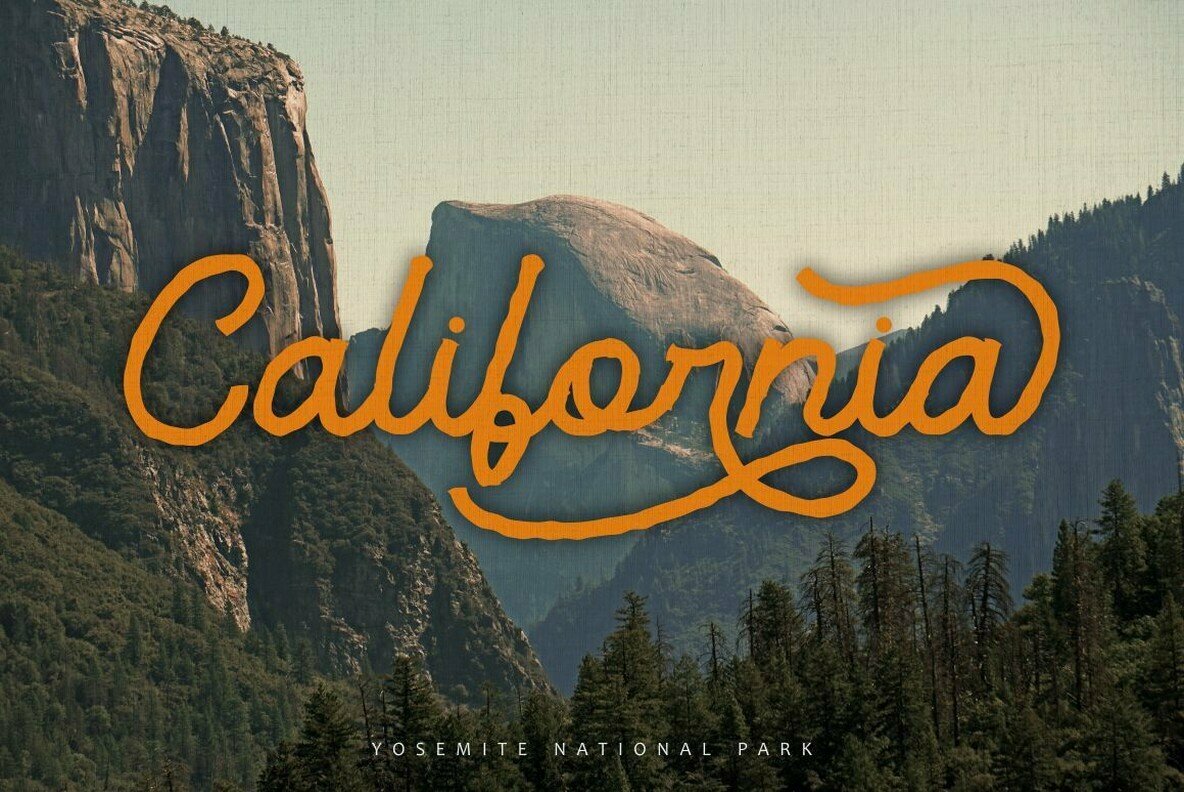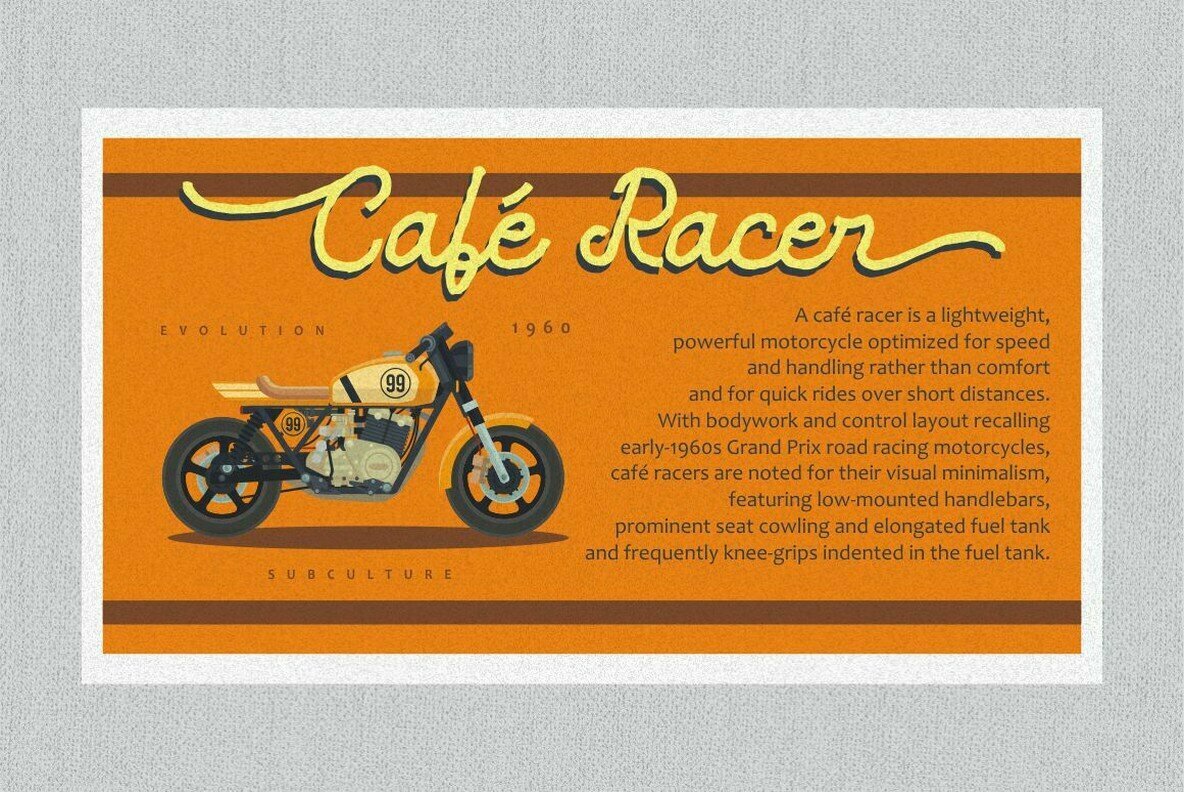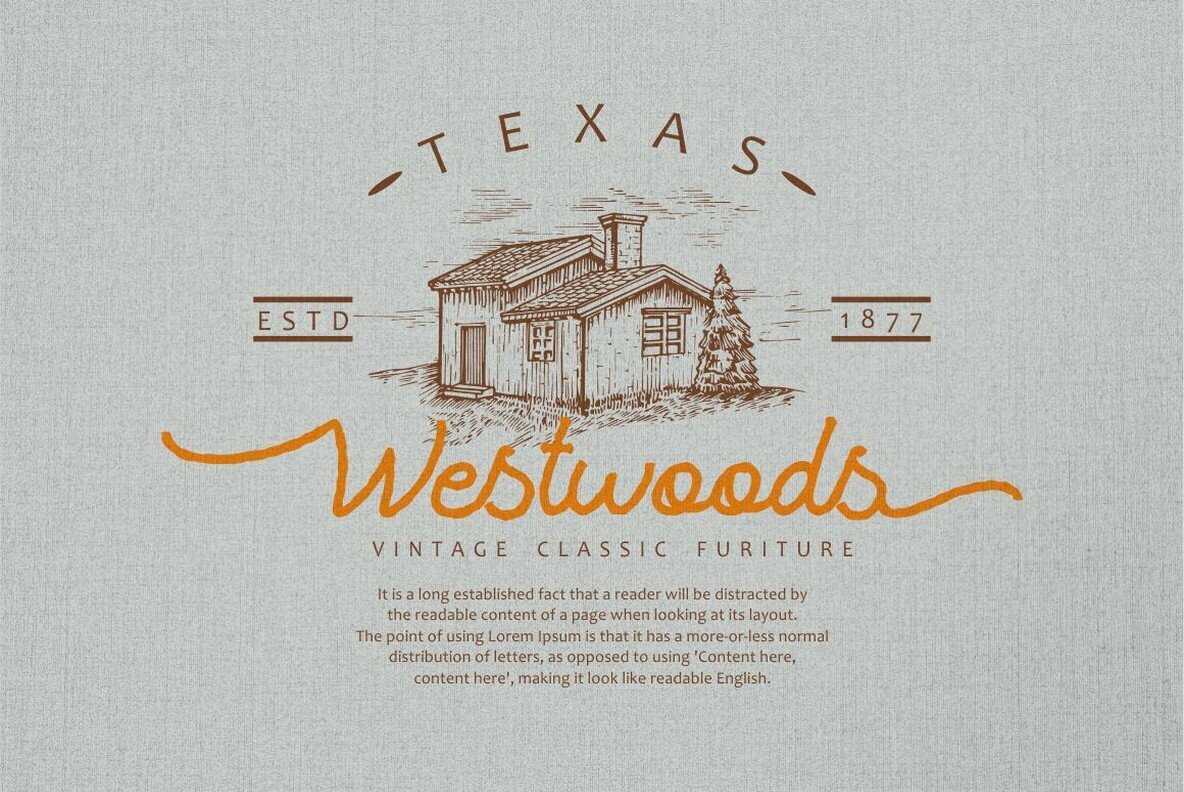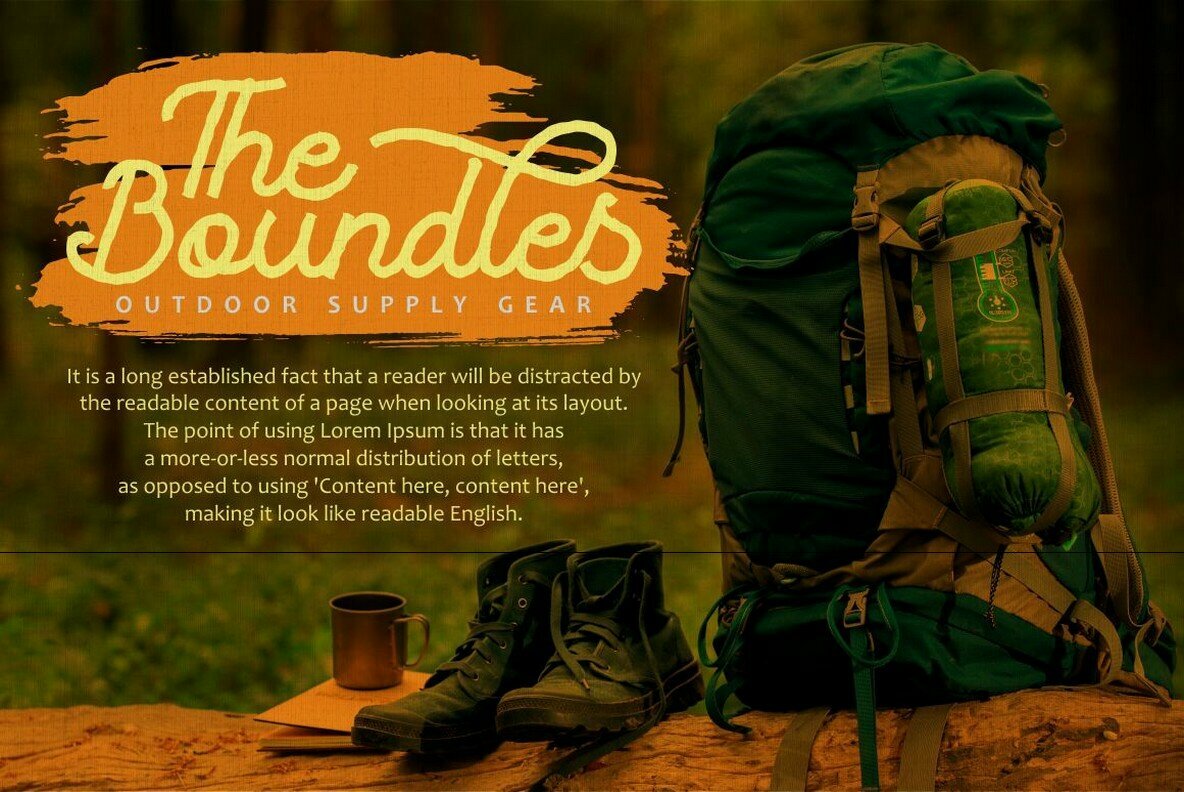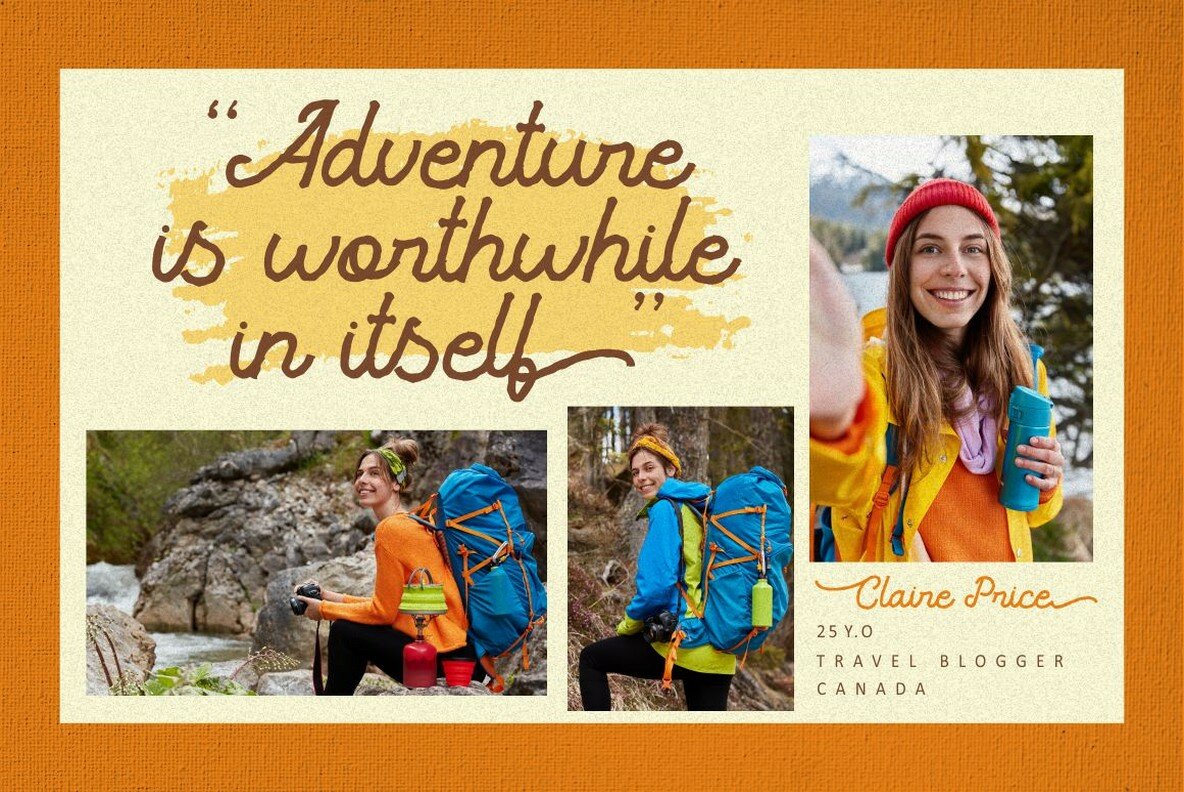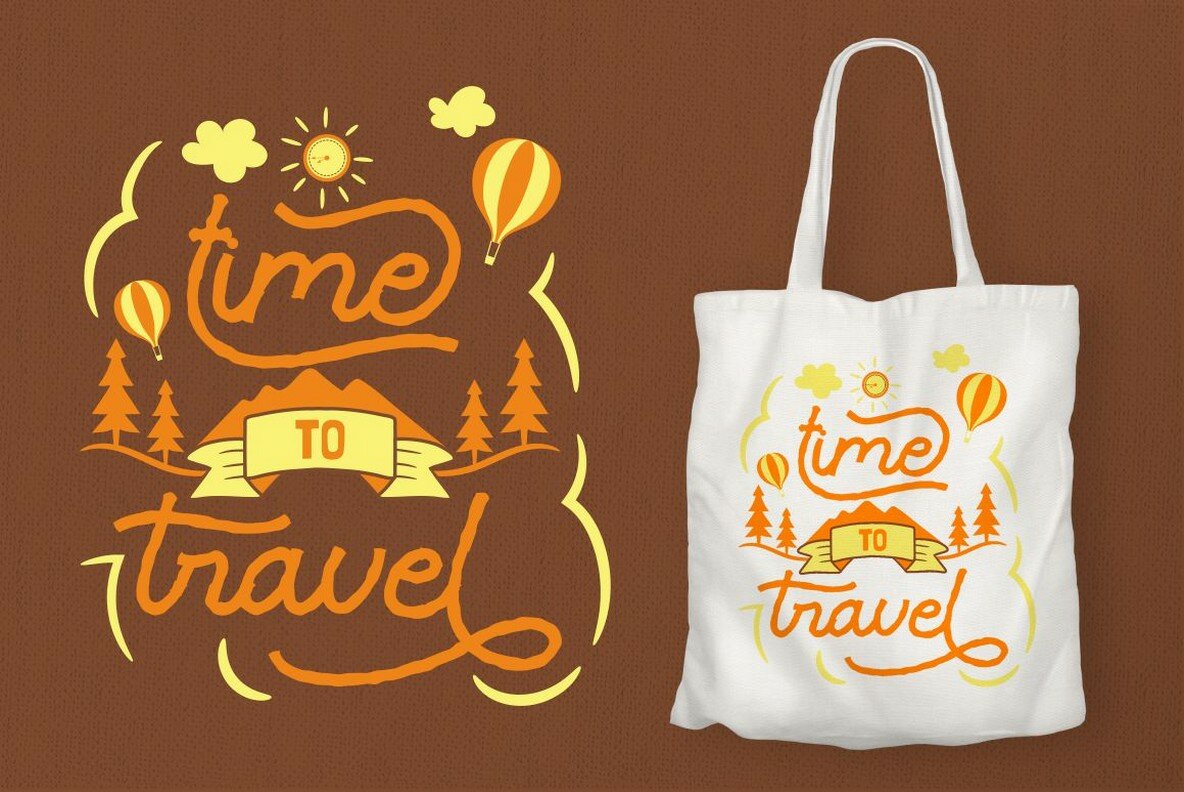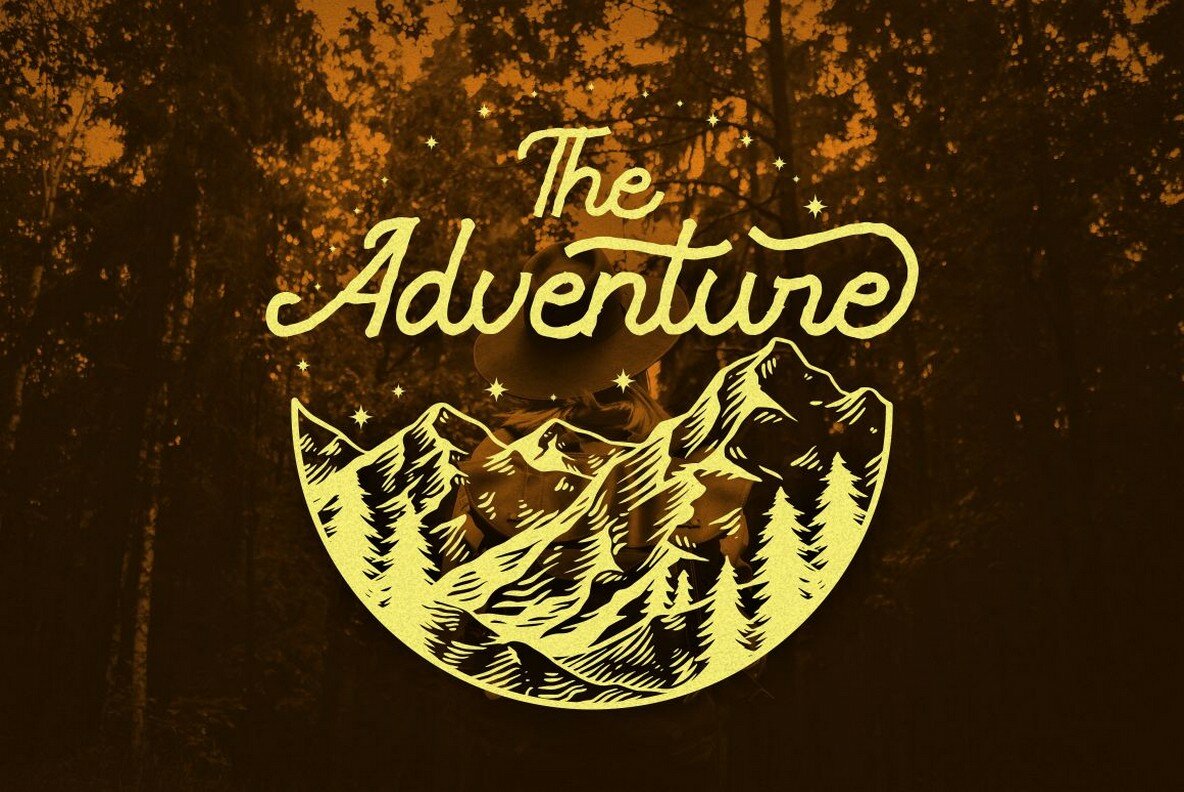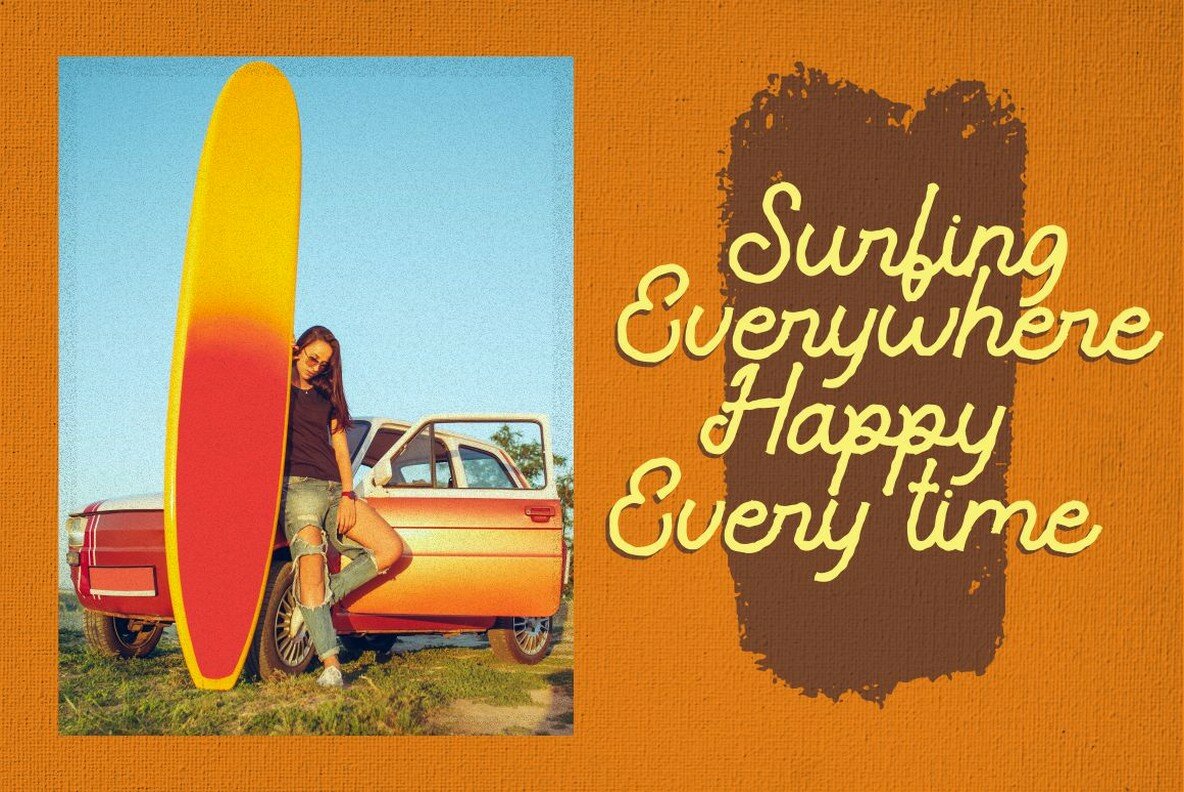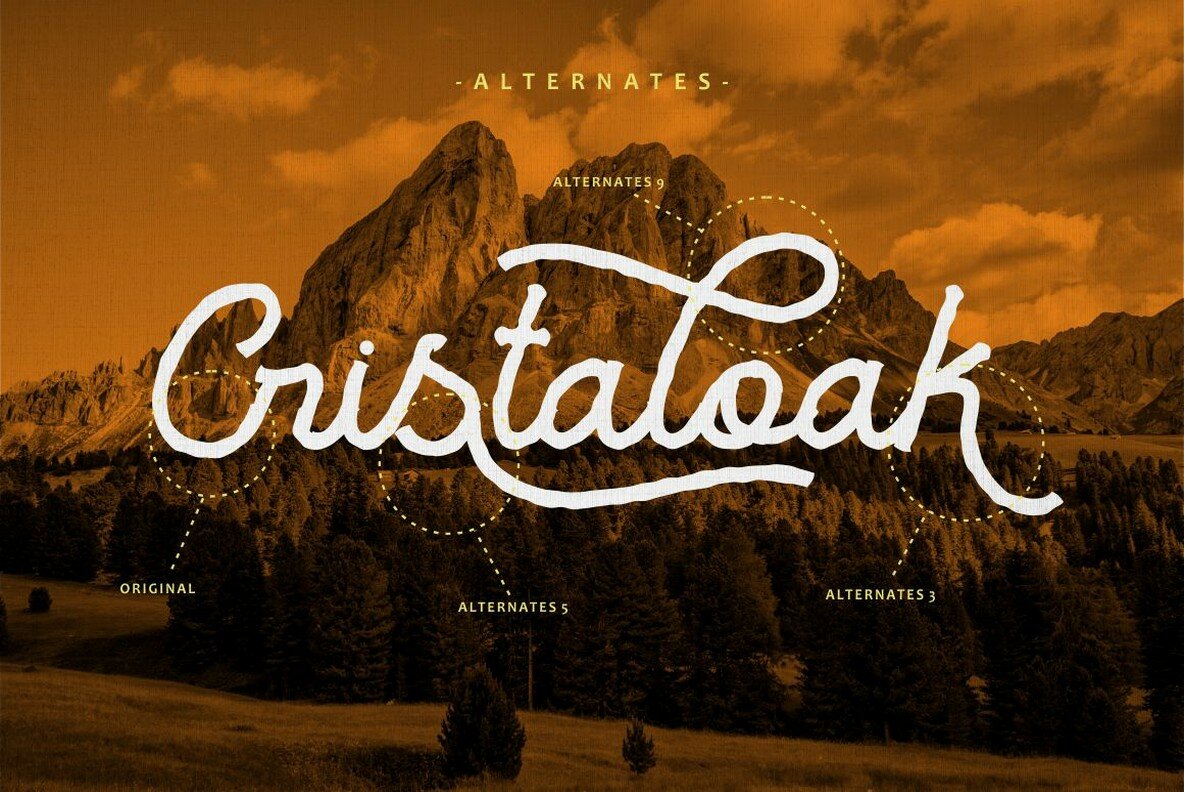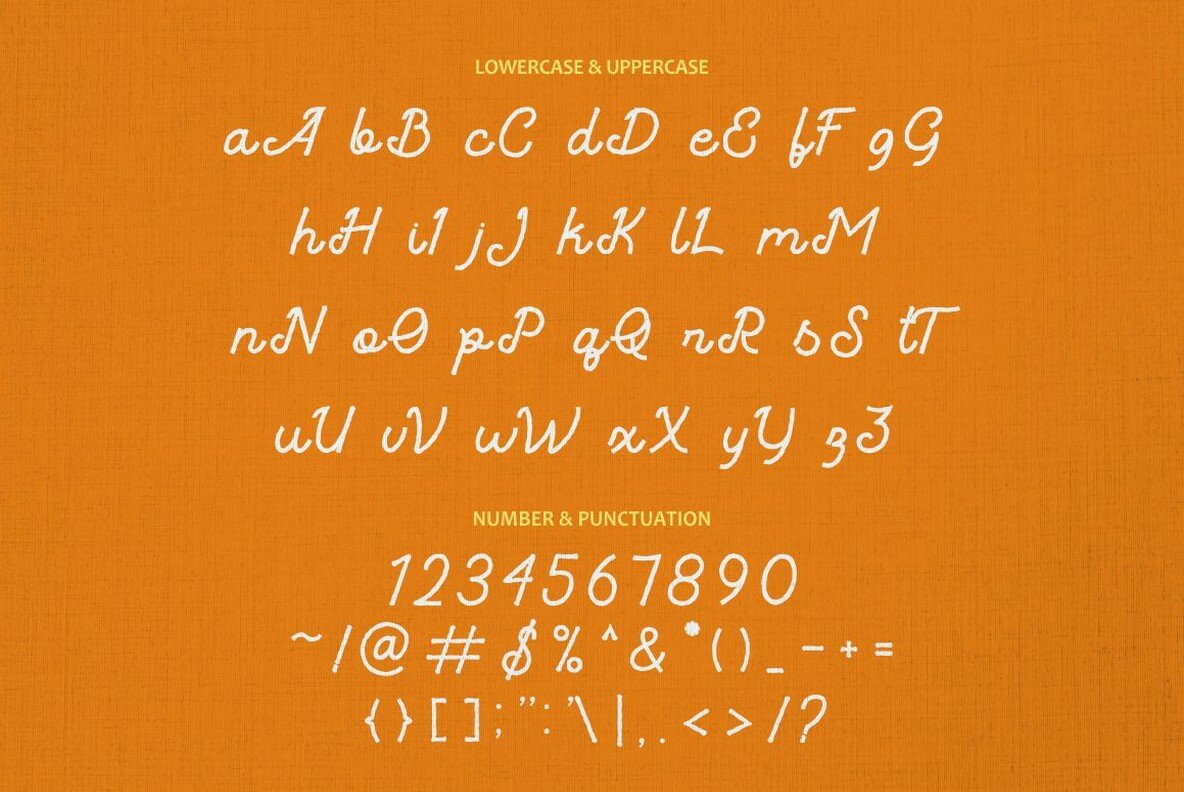
Cristaloak Font
Cristaloak
Cristaloak stands out as a unique monoline script font, distinguished by its rough texture that enhances any retro or vintage design project. This particular style sets it apart from traditional monoline fonts, emphasizing a nostalgic feel that is both striking and versatile. Perfectly suited for a wide array of applications, Cristaloak excels in creating bold and impactful vintage designs. Whether crafting logos, branding materials, or signage, its distinctive character brings a timeless quality to posters, t-shirts, badges, and book covers. Features: Cristaloak's opentype features offer numerous alternates, enabling the creation of dynamic lettering that stands out. Note that the preview images and graphic elements are for presentation purposes only and not included with the font package.Cristaloak: A Rough Monoline Script with Vintage Charm